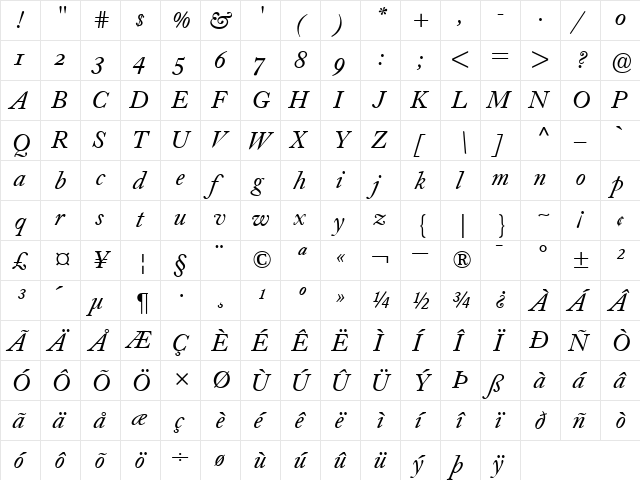
CaslonBEOldstyleFigures-Book BookItalic
Design Context for CaslonBEOldstyleFigures-Book Typeface
CaslonBEOldstyleFigures-Book brings classic typographic sensibility to the table — its serifs and measured letterforms reflect centuries of print heritage. The slanted form adds forward momentum and visual energy.